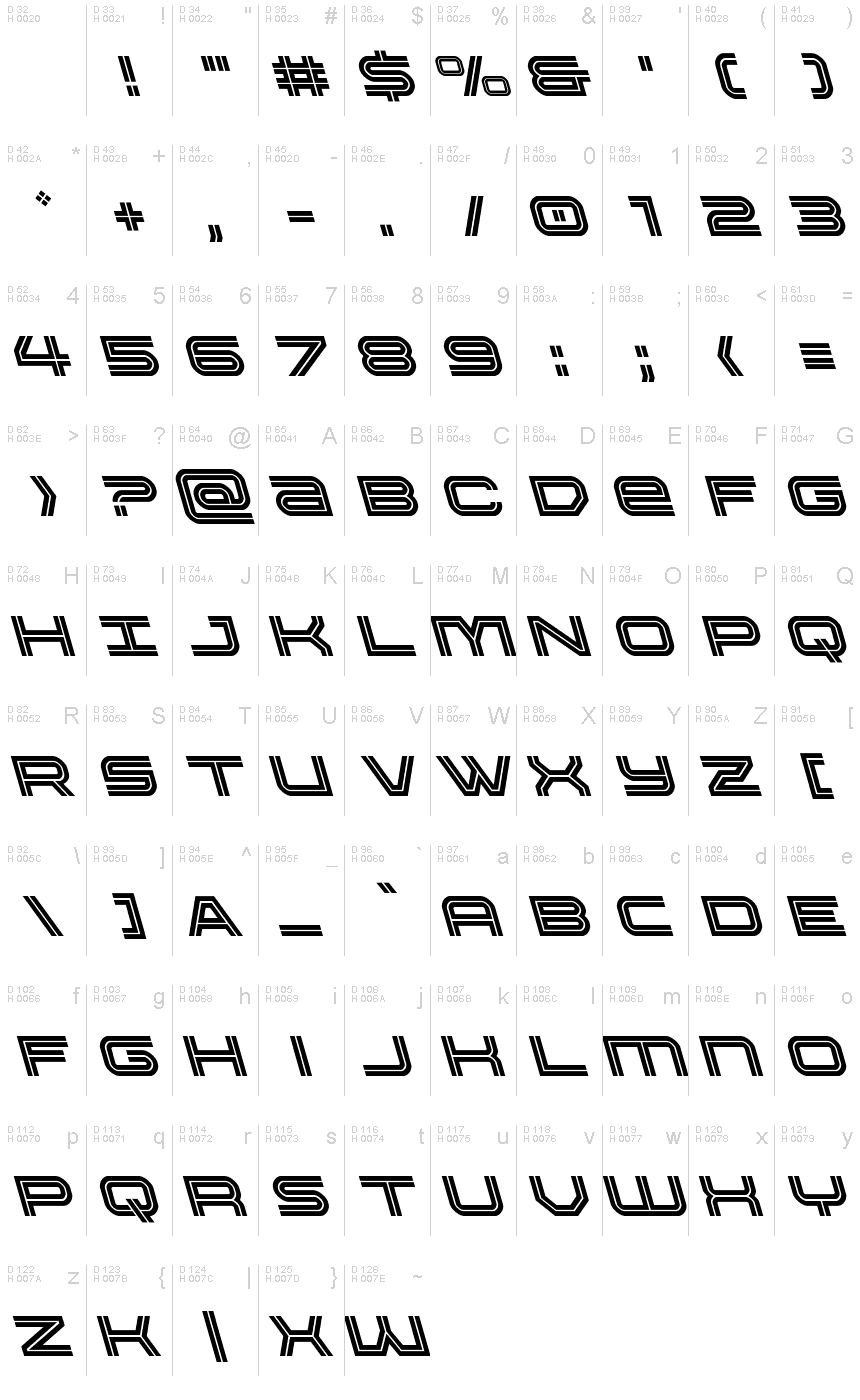
Gran Torino Super-Leftalic
Introducing Gran Torino Super-Leftalic - a bold and wide techno display font designed by Daniel Zadorozny. Perfect for creating an eye-catching and futuristic look in projects such as posters, logos, or video games.